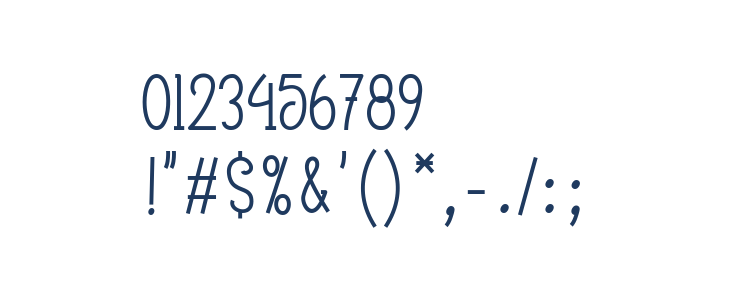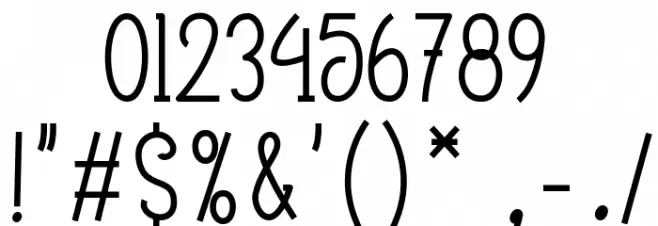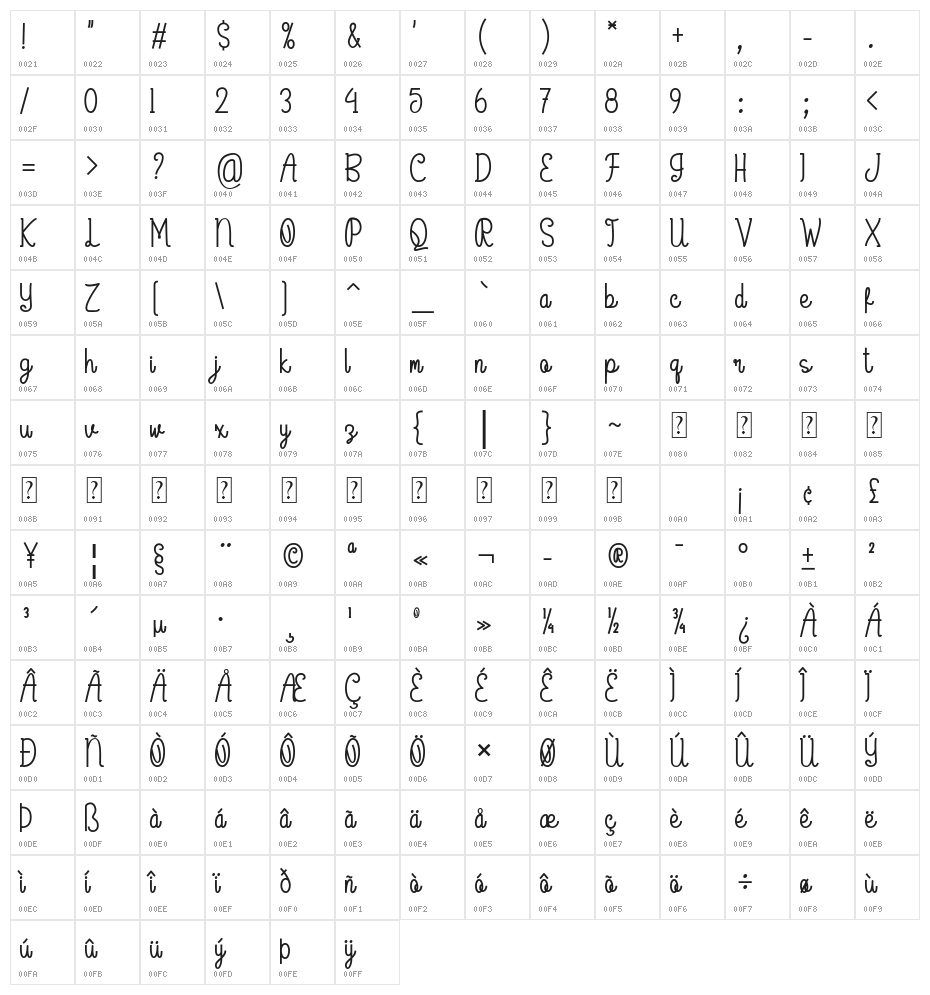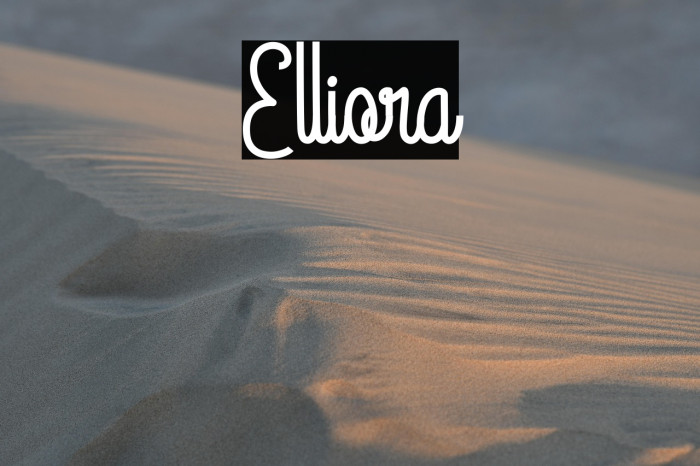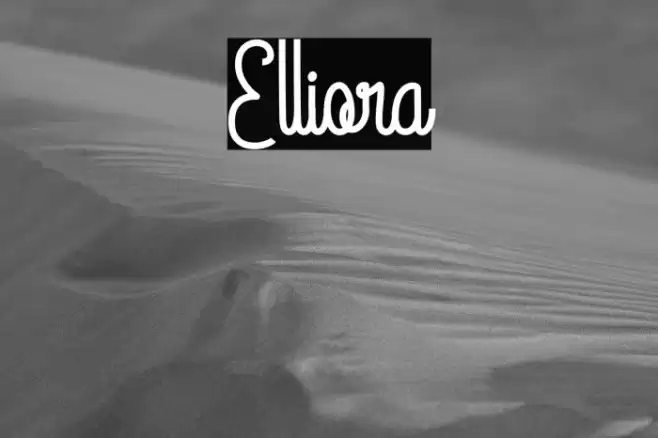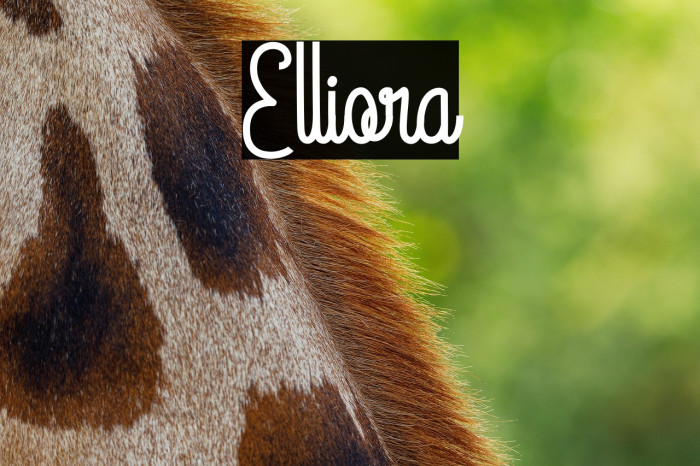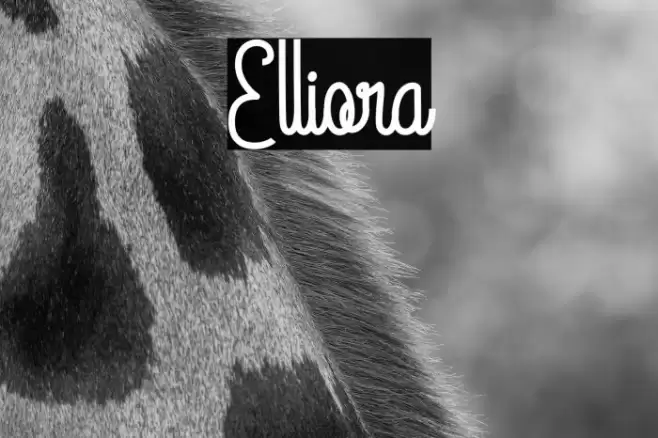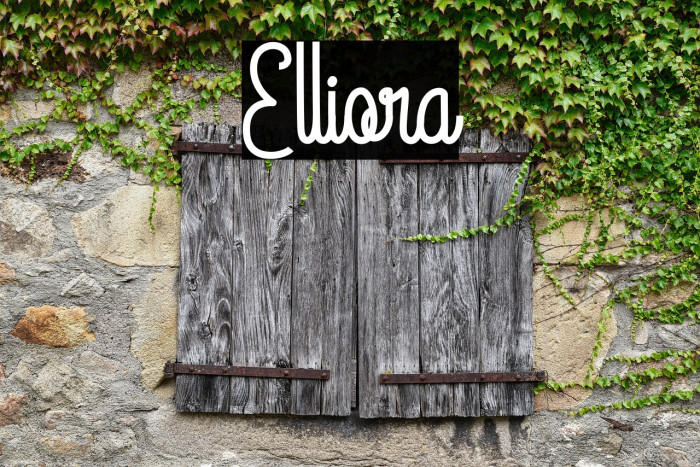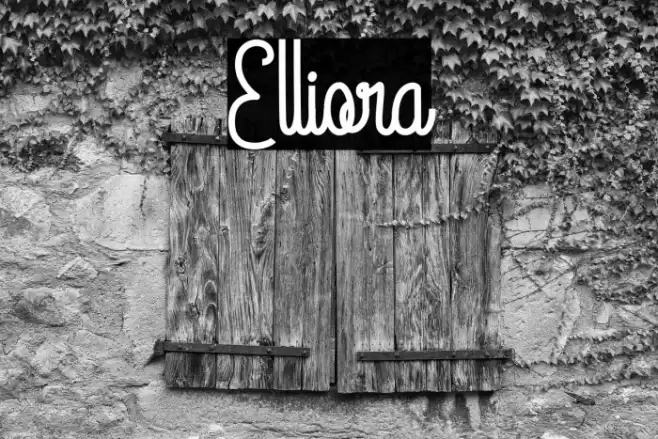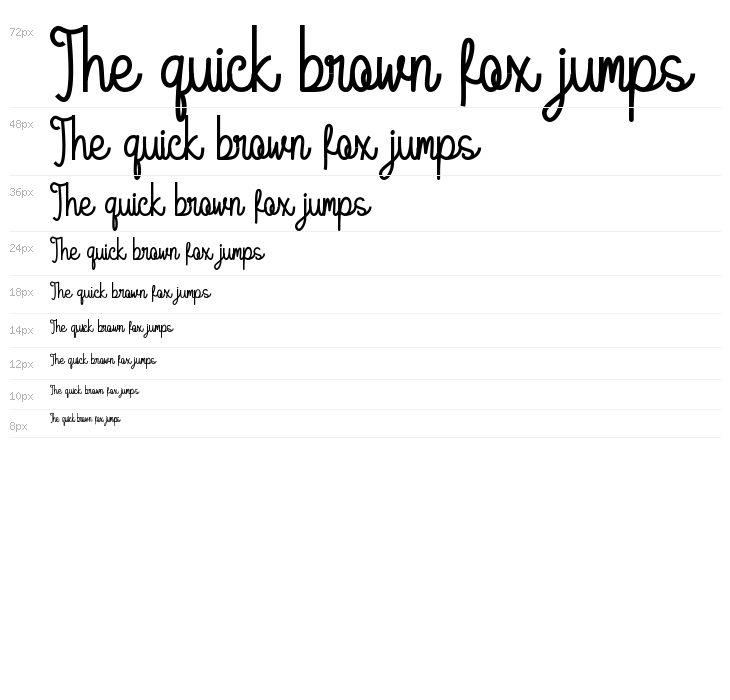
Elliora Font
Elliora Description
This font features a playful and whimsical style with a handwritten touch. The uppercase letters are tall and slightly narrow, with a mix of straight and curved lines that give them a unique character. The lowercase letters maintain a consistent flow, with some letters having loops and swirls that add to the font's charm. The numerals are clear and easy to read, matching the overall playful aesthetic. Special characters are well-integrated, maintaining the font's cohesive look. The font's design is suitable for projects that require a friendly and approachable feel.
Overall StylePlayful
Use CaseHeadlines, Logos, Invitations
Proposed ProjectsIdeal for greeting cards, children's books, playful branding, and creative invitations.